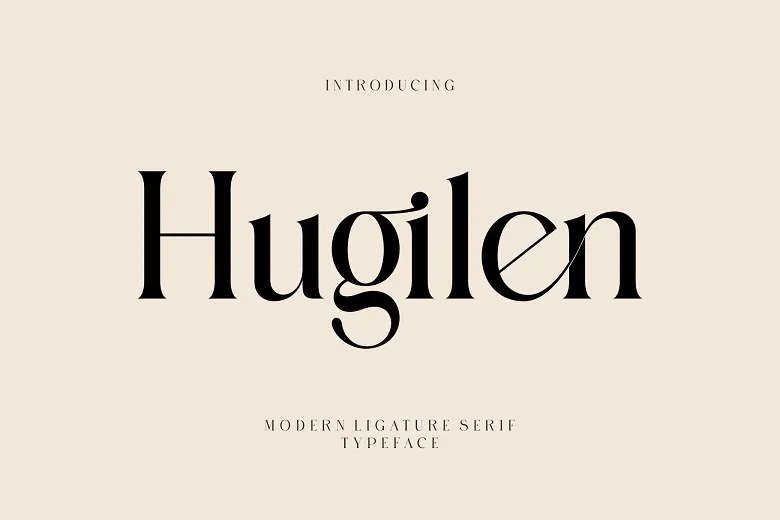
Hugilen Font
Hugilen is a modern ligature serif font that is developed with the concept of the famous logo, and it is especially suitable for template and brochure, video and advertisement, brand and logo design, invitation, layout design for various crafts and beauty designs.
Hugilen Serif Font